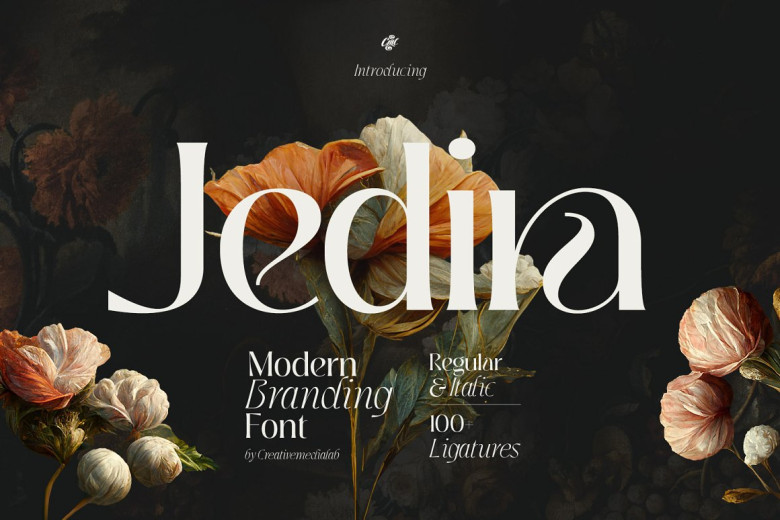
Jedira Font
Jedira Font is an elegant display font with an italic that coordinates, as well as numerous ligatures that makes this font ideal for branding purposes, web design, projects, fashion-related concepts and so forth.
Jedira Serif Display Font